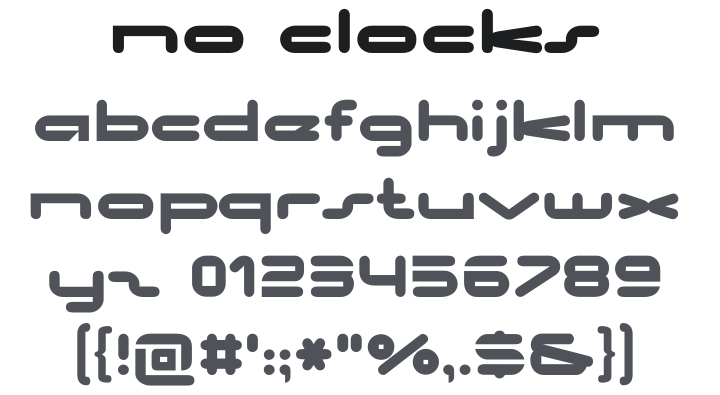
No Clocks Font
About No Clocks
No Clocks is a bold, all-lowercase display typeface with heavily rounded, pill-shaped letterforms where strokes merge and connect seamlessly into one continuous flowing mass — like tubing or inflated rubber forms fused together. Its sleek, airtight geometry feels futuristic yet organic. Perfect for tech branding, sci-fi interfaces, automotive design, electronic music graphics, and any headline needing smooth, modern, space-age confidence.